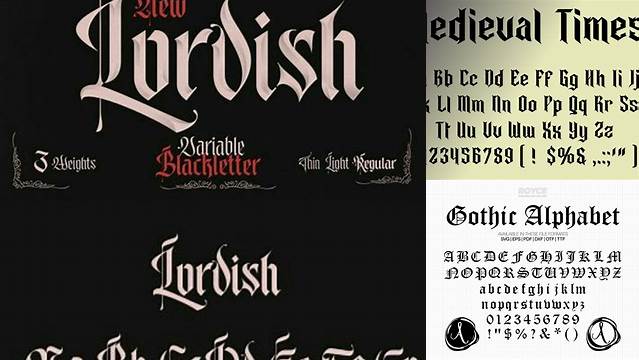
Medieval Fonts For Windows: Your Ultimate Guide
Introduction: Embracing the Medieval Aesthetic with Fonts for Windows
Hey guys, let's dive into the fascinating world of medieval fonts for Windows. If you're into history, fantasy, or just love the look of old manuscripts, then you're in the right place. This guide is your ultimate resource for everything related to Gothic, blackletter, and other historical typefaces. We'll explore where to find these fonts, how to install them on your Windows system, and how to use them to bring a touch of medieval charm to your projects. Whether you're a graphic designer, a writer, or simply a curious enthusiast, understanding and utilizing medieval fonts can significantly enhance your creative endeavors. These fonts aren't just about aesthetics; they're about connecting with a rich history and conveying a specific mood or feeling. From invitations to book covers, the right font can make all the difference, so let's get started!
In this article, we'll be focusing on medieval fonts compatible with the Windows operating system. This means we'll be discussing fonts that are readily available for download and installation on your PC. We'll cover the various styles of medieval fonts, including Gothic, blackletter, Fraktur, and more. We'll also provide links to reputable sources where you can download these fonts safely and legally. Installation instructions will be provided, making it easy for you to start using these fonts in your favorite applications like Microsoft Word, Adobe Photoshop, and more. Moreover, we'll discuss the best ways to use these fonts effectively, considering their unique characteristics and historical context. Choosing the right font can be a daunting task, so this guide will help you make informed decisions. We will also showcase examples of how these fonts are commonly used in different design projects to provide you with inspiration and practical application tips. So, buckle up, and get ready to explore the captivating realm of medieval typography, right on your Windows machine!
Understanding Different Types of Medieval Fonts: A Deep Dive
Alright, before we get into the nitty-gritty of downloading and installing, let's get to know the players: the various types of medieval fonts. This will help you understand what you're looking for and choose the perfect font for your project. The most iconic of all is the Gothic font. It's characterized by its sharp, angular forms, often with serifs that are almost like little hooks. Gothic fonts, also known as blackletter or Old English, were widely used throughout medieval Europe, especially in Germany and the Low Countries. Think of the classic look of old manuscripts and illuminated texts. Gothic fonts have a strong, imposing presence, making them perfect for headings, titles, and anything that needs to convey a sense of tradition or formality. It screams "medieval"!
Next up, we have Fraktur, a subset of Gothic fonts. Fraktur fonts are incredibly ornate and detailed, with intricate letterforms that can be quite challenging to read at times. These fonts were particularly popular in Germany and were often used for official documents and religious texts. While visually stunning, Fraktur can sometimes be less legible than other Gothic styles. It's a great choice if you want to create a truly authentic medieval feel, but consider the readability factor, especially for large bodies of text. Then there's the Textura font, known for its upright, vertical strokes and condensed appearance. Textura is another style of Gothic font that was widely used in the 12th and 13th centuries. These fonts are ideal for creating a sense of elegance and sophistication, and they often appear in historical books and official documents. Choosing the right type of medieval font is crucial, so make sure you know the characteristics of each.
Finally, there are other variations within these categories and fonts that draw inspiration from medieval calligraphy and lettering. For instance, some fonts might blend Gothic characteristics with more modern designs, creating a unique hybrid look. Understanding these nuances will help you pick the perfect font that complements your project’s aesthetic and intended message. Remember, it's not just about the look; it's about the feeling and the historical context you want to evoke. These fonts can give a truly authentic feel to your project. So, take your time to explore and find the fonts that best match your vision. Choosing the right font is an artistic and intellectual process!
Then, we've got Font Squirrel: This site offers a curated collection of fonts, often with a focus on quality and usability. They also provide a handy tool called the Font Squirrel Font Identifier, which can help you identify a font if you find it in an image or document and don't know its name. They also have a good selection of medieval fonts. Always read the license information before downloading. Finally, there are commercial font foundries like MyFonts and Fonts.com: These sites offer premium fonts, including high-quality medieval fonts, but you'll need to pay for them. If you need a font for professional projects, investing in a premium font can be a good option. Remember, the best way to stay safe is to download fonts only from trusted sources and to always check the license before using them. Don't skip the fine print! Doing so ensures that you respect the designers' rights and avoid any legal trouble. Now you can get these medieval fonts on your Windows machine!